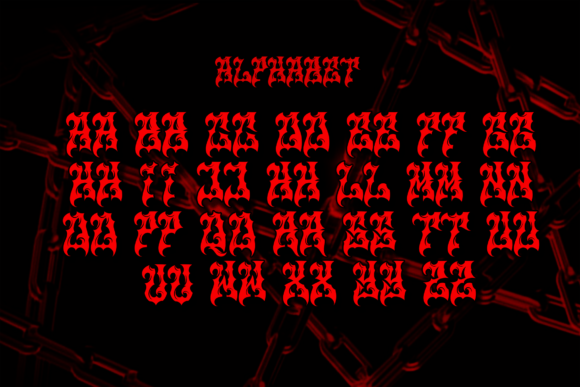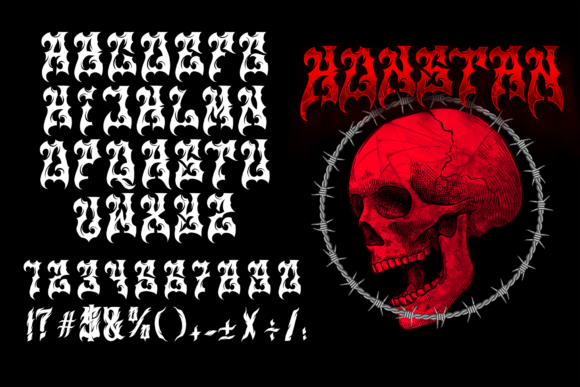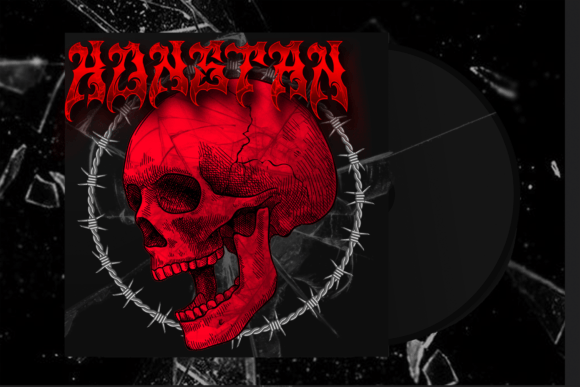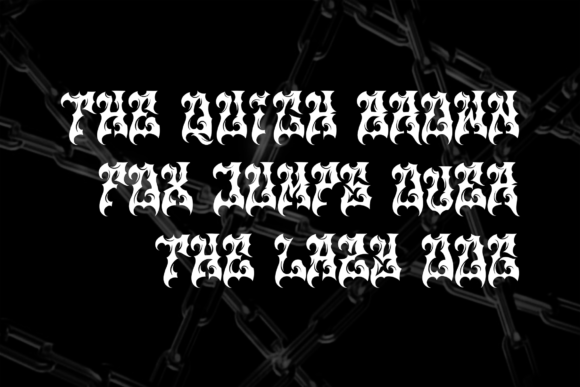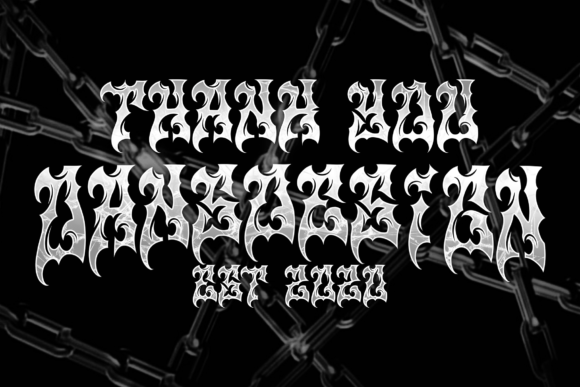
Introduction to Konstan Font
Konstan is a Gothic Metal blackletter font.
Use this strong and impressive typeface to add cool vibes to t-shirts, album covers, magazines, or anything that needs to stand out .
Key Features of Konstan Font